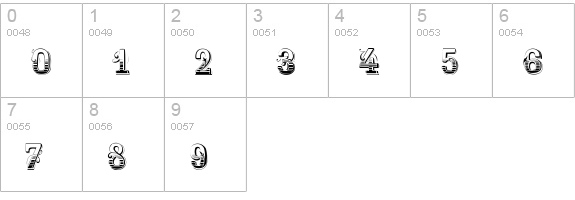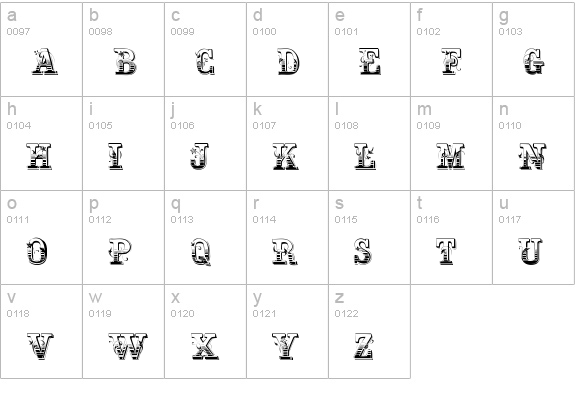
Holteschue font is a beautifully designed typeface that exudes elegance and sophistication. Its intricate details and flowing curves make it perfect for adding a touch of class to any project. Whether you're designing a wedding invitation, a logo, or a website, Holteschue font will surely make a lasting impression. What sets Holteschue font apart is not just its stunning aesthetics, but also the fact that it is available for free. Yes, you read that right - this exquisite font can be downloaded at no cost from FontsMarket.com. So go ahead and elevate your designs with Holteschue font, without breaking the bank. Let your creativity shine with this versatile and timeless typeface.